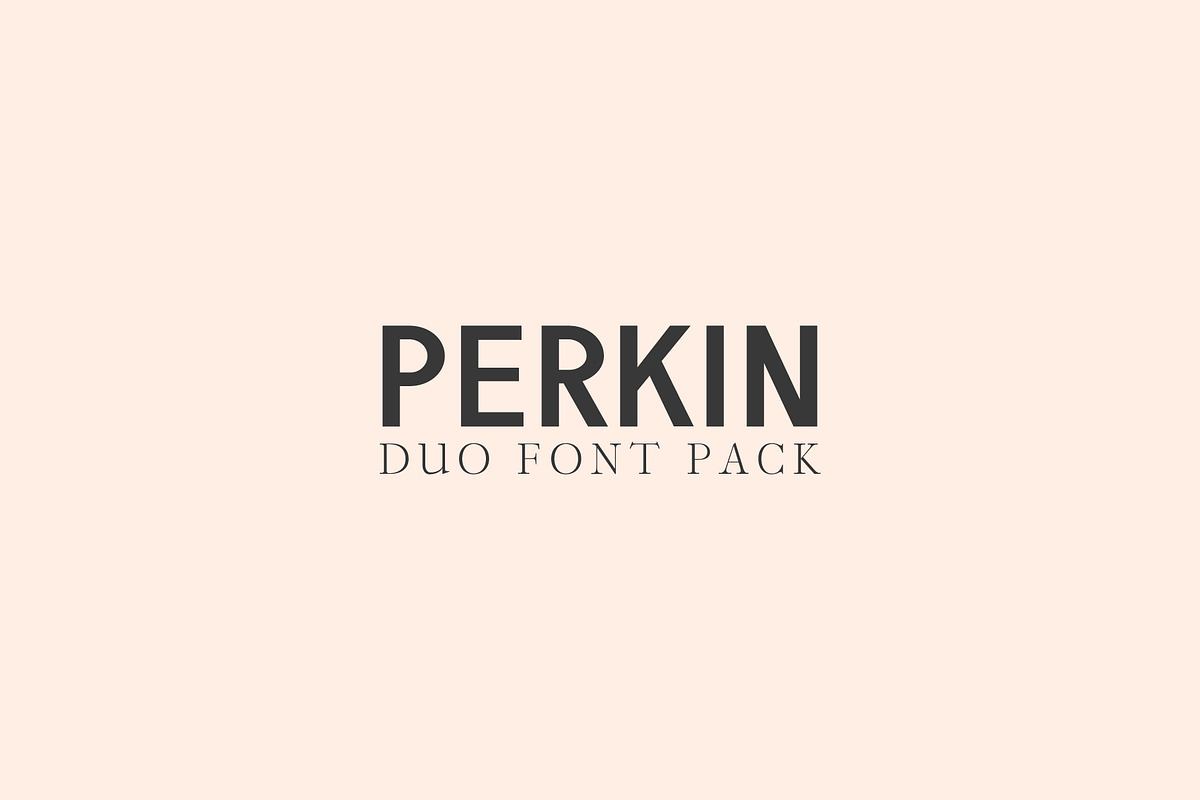
Perkin | Duo Font + Bonus Logo Free Download is a stylish and flexible font duo that pairs a clean sans serif with a bold display typeface, making it perfect for logos, branding projects, social media graphics, packaging, and modern editorial layouts. The added bonus logo templates make it even easier to create cohesive visual identities with a professional touch.
This versatile duo offers contrast and balance—ideal for designers looking to mix elegance with a modern edge. Whether you're building a chic fashion brand or a minimalist product label, Perkin delivers structure, personality, and polish in every element.